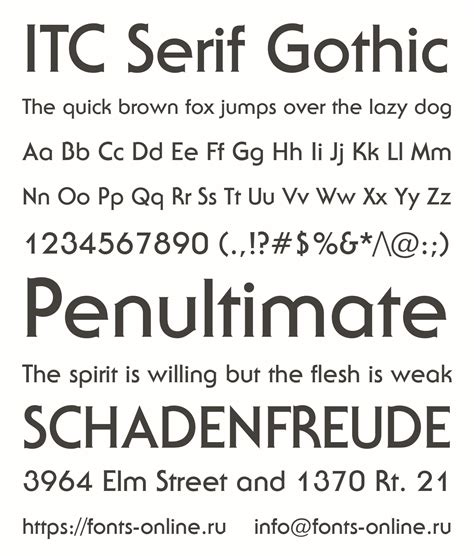
Itc Serif Gothic Font Generator. Designed by herb lubalin and tony di spigna. Itc serif gothic font is the joint effort of herb lubalin and antonio dispigna.